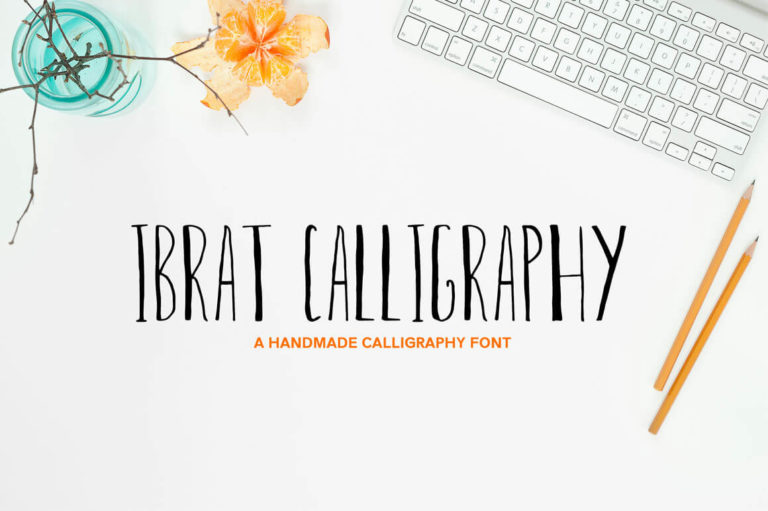
- Ibrat Calligraphy Font
Ibrat Regular
Ibrat Outline
Ibrat Calligraphy Font is perfect for adding a personal touch to all of your design projects. Great for cards, invitations, t-shirts, logos, quotes, apparel, advertising, image overlays, greeting cards, web banners, and branding
- Font Weight: Regular and Outline
Ibrat Font Features:
- Uppercase Letters
- Lowercase Letters
- Punctuation and Special Characters